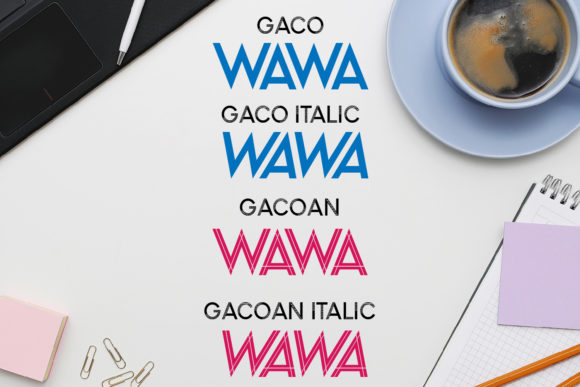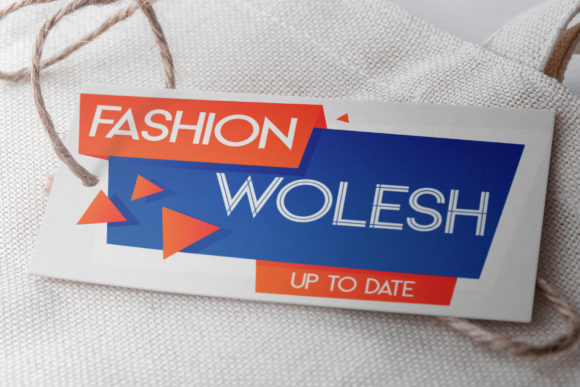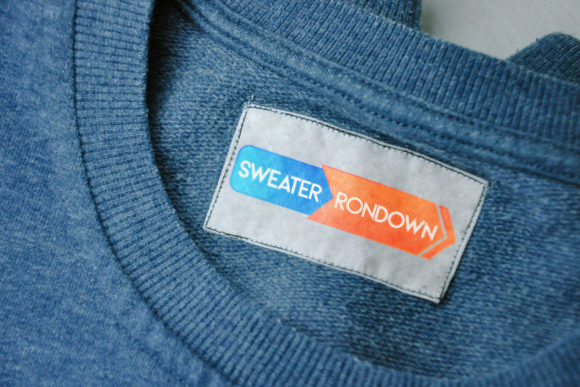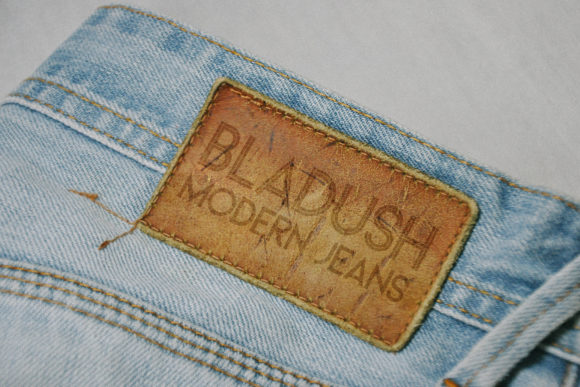
Gaco Font: The Bold and Beautiful Sans Serif for Your Creative Projects
Are you looking for a font that can add a touch of boldness and uniqueness to your creative projects? Look no further than Gaco Font! This stunning sans serif font is designed to make your designs stand out, and its versatility makes it perfect for a wide range of projects. In this article, we’ll dive into the world of Gaco Font, exploring its features, benefits, and uses, as well as provide tips and inspiration for incorporating it into your designs.
What is Gaco Font?
Gaco is a bold and round lettered sans serif font that is sure to grab attention. Its clean and simple design makes it easy to read and understand, while its boldness adds a touch of confidence and sophistication. The font’s rounded edges give it a friendly and approachable feel, making it perfect for designs that require a human touch.
Key Features of Gaco Font
- Bold and Round Design: Gaco Font features a bold and round design that is sure to make your text stand out.
- Sans Serif: The font’s sans serif design makes it clean and easy to read, perfect for digital and print designs.
- Versatile: Gaco Font can be used for a wide range of projects, from branding and advertising to packaging and web design.
- Easily Readable: The font’s simple design makes it easy to read, even at small sizes.
Benefits of Using Gaco Font
So why choose Gaco Font for your creative projects? Here are just a few benefits of using this amazing font:
- Adds Visual Interest: Gaco Font’s bold and round design adds visual interest to your designs, making them more engaging and attention-grabbing.
- Perfect for Branding: The font’s unique design makes it perfect for branding and advertising, helping you to create a memorable and recognizable brand identity.
- Easy to Pair: Gaco Font can be easily paired with other fonts to create a unique and harmonious design.
Using Gaco Font in Your Designs
So how can you use Gaco Font in your designs? Here are a few ideas to get you started:
- Branding and Advertising: Use Gaco Font to create bold and eye-catching branding and advertising materials, such as logos, billboards, and magazine ads.
- Packaging Design: Add a touch of personality to your packaging designs with Gaco Font, making your products stand out on store shelves.
- Web Design: Use Gaco Font to create bold and modern web designs that are sure to grab attention.
- Print Design: Gaco Font is perfect for print designs, such as brochures, flyers, and posters.
Tips for Working with Gaco Font
Here are a few tips for working with Gaco Font:
- Use it Boldly: Gaco Font is designed to be bold and eye-catching, so don’t be afraid to use it in large sizes and bold weights.
- Pair it with Other Fonts: Experiment with pairing Gaco Font with other fonts to create a unique and harmonious design.
- Experiment with Colors: Gaco Font looks great in a wide range of colors, so don’t be afraid to experiment and find the perfect color for your design.
In conclusion, Gaco Font is a bold and beautiful sans serif font that is perfect for adding a touch of uniqueness and sophistication to your creative projects. Its versatility, readability, and bold design make it perfect for a wide range of projects, from branding and advertising to packaging and web design. With its ease of use and flexibility, Gaco Font is sure to become a favorite in your design arsenal. So why wait? Download Gaco Font today and start creating stunning designs that are sure to grab attention!